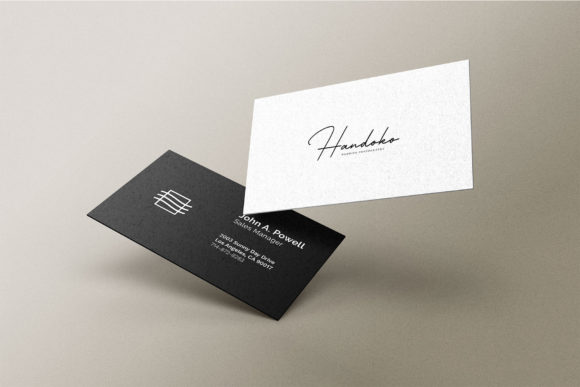
Business Signature Font
db-ku.com - Script & Handwritten -- Business Signature is a stylish and delicate script font. It has a clean, thin and smooth vibe and it will be a hit for any design that you want to add it to.